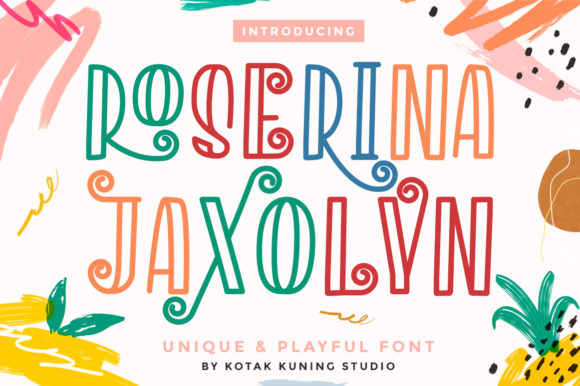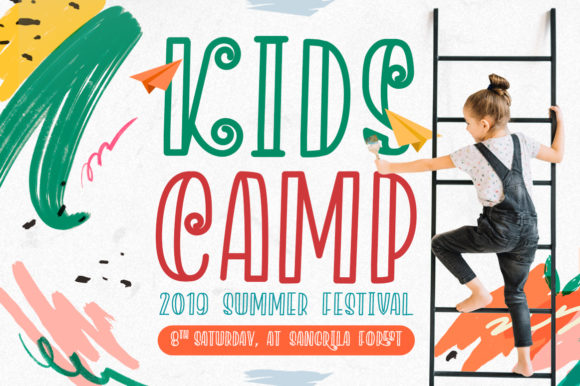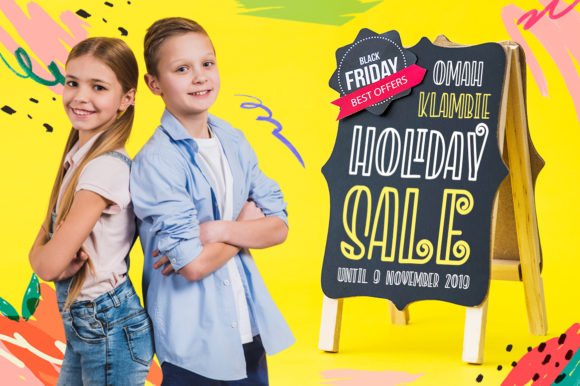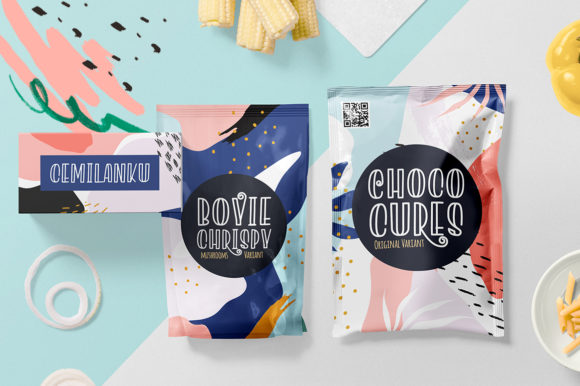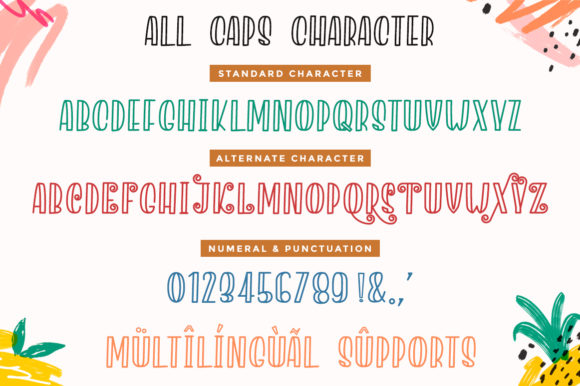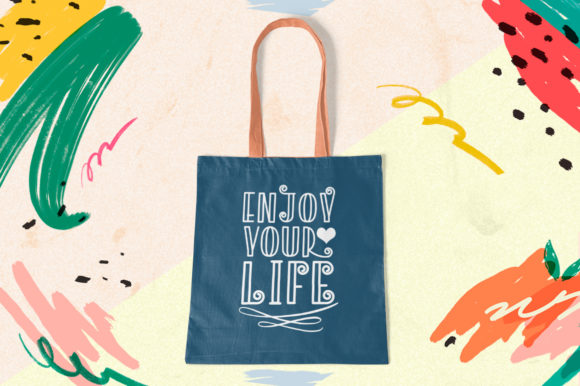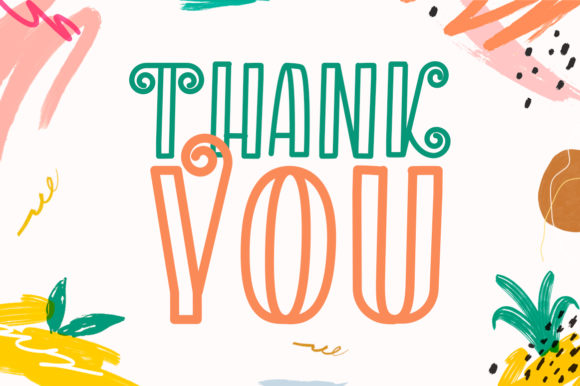
Roserina Jaxolyn Font
About Roserina Jaxolyn Font
Roserina Jaxolyn is a unique and wonderful handwritten font with a playful tone. Get inspired by its whimsical charm.